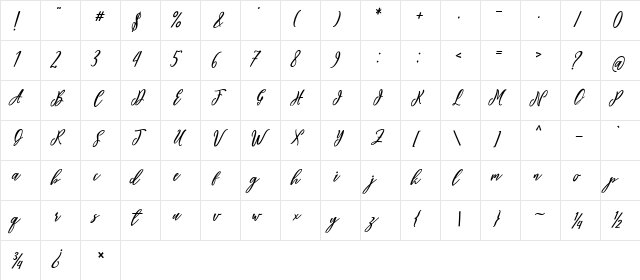
alana you Regular
Design Context for alana you Typeface
alana you is a composed and adaptable typeface that performs quietly and consistently across a wide range of design contexts.